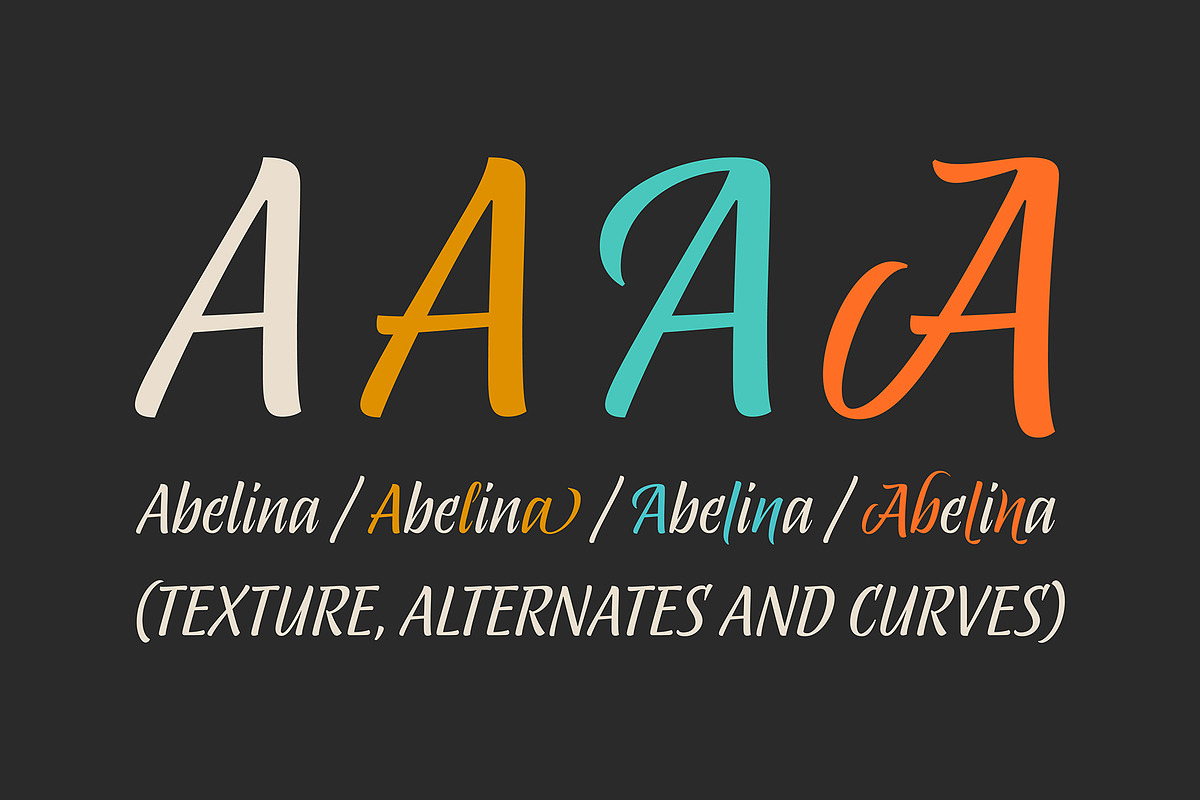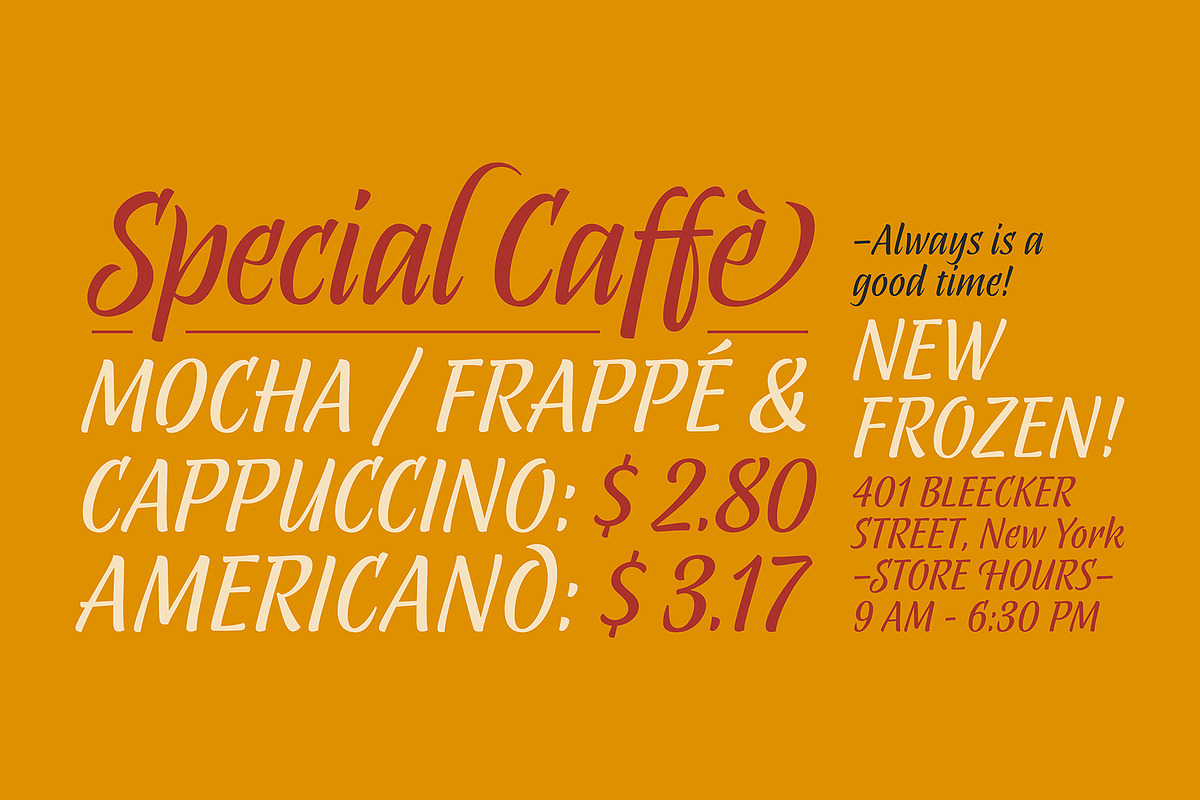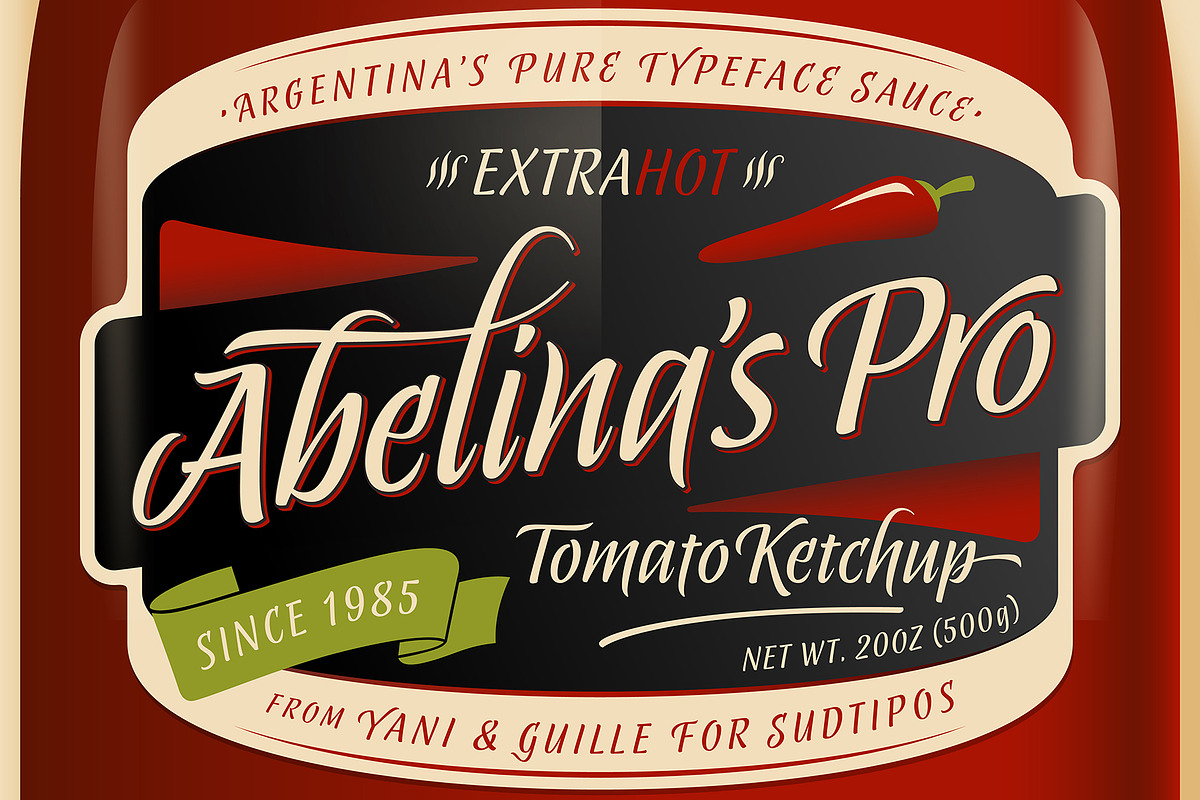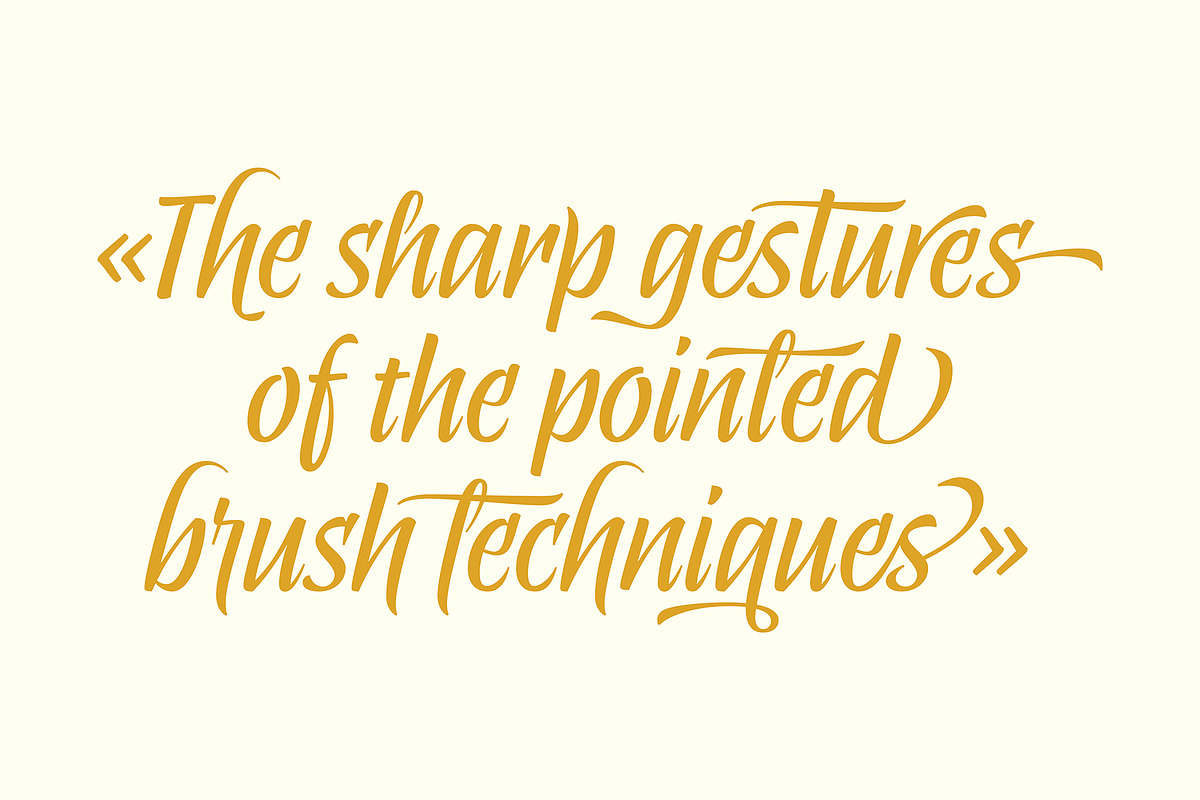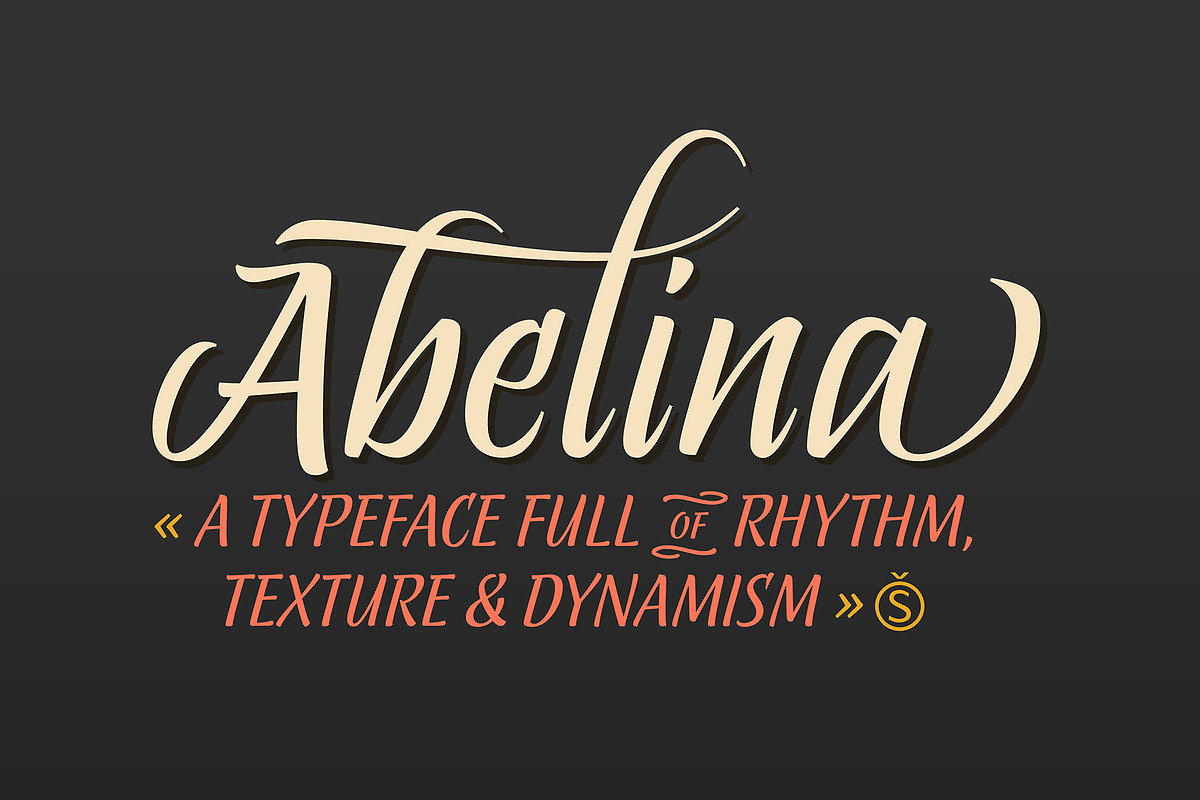
Abelina Pro
«Abelina» is a typeface that can be used in display sizes for titles where part of the central premise is to emulate certain features of gestural handwriting.
Concepts like spontaneity, speed and fluidity, associated with the use of certain calligraphic tools – in this case the pointed brush – led to a typographic result based on the pattern-like structure coming from the chancery and italic calligraphic models.
«Abelina» - initially designed by Yanina Arabena (Calligrapher, Graphic Designer and Typographer) - is reborn to make way for “Abelina Pro” through the solid work of Guillermo Vizzari working together with Ale Paul from Sudtipos.
Throughout its use, “Abelina Pro” maintains the structure of a firm style, integrating a dynamic rhythm in the composition of short texts and offering personality to each of the words it builds. It has over a thousand glyphs, including several alternates, ligatures combination, initials and miscellaneous to reinforce the idea of the author of merging a calligraphic project in the typographic world; allowing new ways to capture this great universe of italic faces.